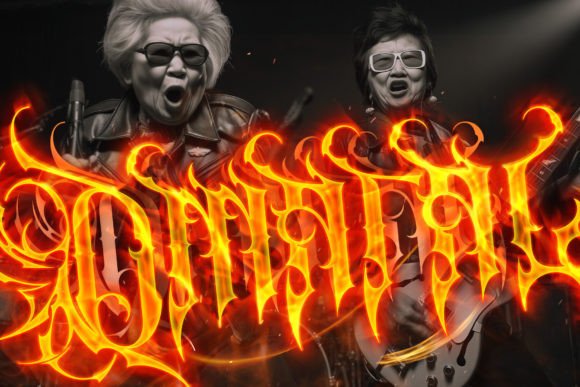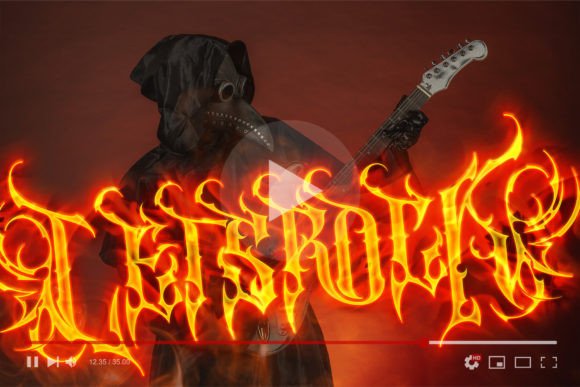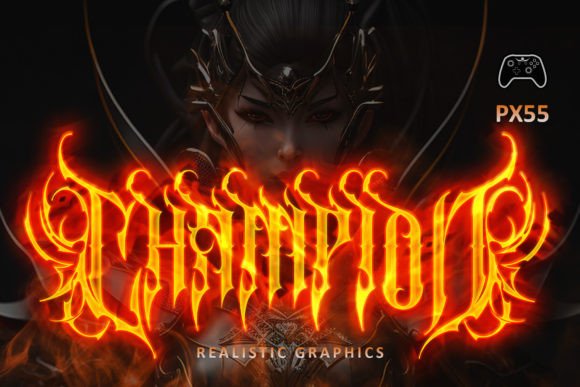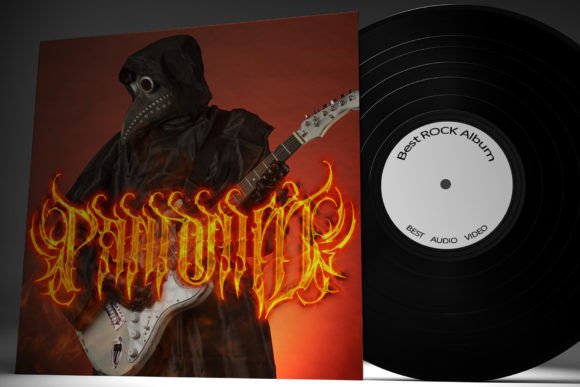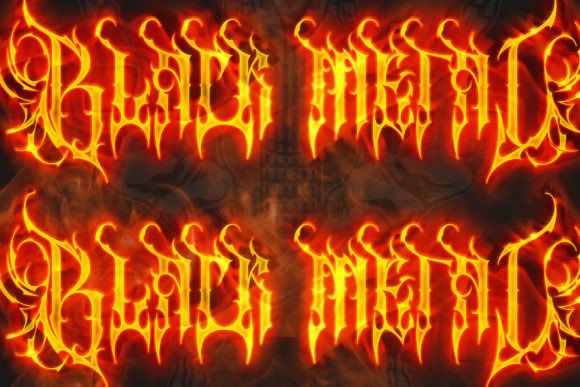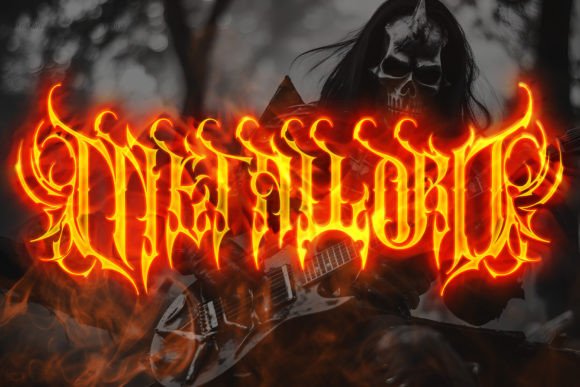
Introduction to Queenlord Font
Have you ever stared at a blank canvas, trying to conjure the perfect font to bring your creative project to life? You know the feeling – that spark of inspiration waiting to ignite your imagination. For designers seeking a touch of sophistication and grandeur, we’re thrilled to introduce the majestic Queenlord Font. This regal typography is designed to elevate your designs, leaving a lasting impression on your audience.
With its striking, gothic-inspired design, Queenlord Font is the ultimate resource for designers who crave a high-quality, attention-grabbing font. Whether you’re working on a movie title, album cover, or logo, this font’s commanding presence will undoubtedly make your design stand out from the crowd. And the best part? You can download Queenlord Font for free, making it an invaluable addition to any design arsenal.
As a valuable asset in your design toolkit, Queenlord Font offers a transparent background, allowing you to easily integrate it into your creative projects. Its versatility and elegance make it an ideal choice for designers who want to add a touch of sophistication and authority to their work.
Key Features of Queenlord Font
- High-quality design resource for creative projects, offering a unique and elegant aesthetic.
- Transparent background option, allowing for seamless integration with various design elements.
- Designed with precision and attention to detail, ensuring a professional finish in any creative project.
- Perfect for use in logos, branding materials, and other design elements where a touch of sophistication is required.
Honest Review: Queenlord Font
As a designer, I’m always on the lookout for high-quality design resources that can elevate my creative projects. Recently, I stumbled upon the Queenlord Font, and I’m excited to share my honest review with you.
What works well: ✨ The Queenlord Font is incredibly versatile, making it perfect for a wide range of design applications, from branding to editorial content. Its elegant and refined style adds a touch of sophistication to any creative project. Additionally, the font comes in a variety of weights and styles, allowing for maximum flexibility in your design process.
- Perfect for branding, editorial content, and more
Limitations: ⚠️ One thing to note is that the Queenlord Font may not be suitable for very large-scale projects, as the font files can be quite large. Additionally, some users may find the font’s elegance to be too minimalist for their taste.
Overall impression: I’m thoroughly impressed with the Queenlord Font, and I highly recommend it to any designer looking for a high-quality design resource. With its versatility, elegance, and free download option, it’s a great addition to any design arsenal.
Tips for Getting the Most Out of Queenlord Font
Use the Queenlord Font in conjunction with a transparent background to create a clean and modern design. Experiment with different font sizes and colors to add depth and visual interest to your design project.
Common Use Cases for Queenlord Font
The Queenlord Font is ideal for use in creative projects such as logos, branding materials, and advertising campaigns. Its high-quality design and transparent background make it a versatile design resource for any project.